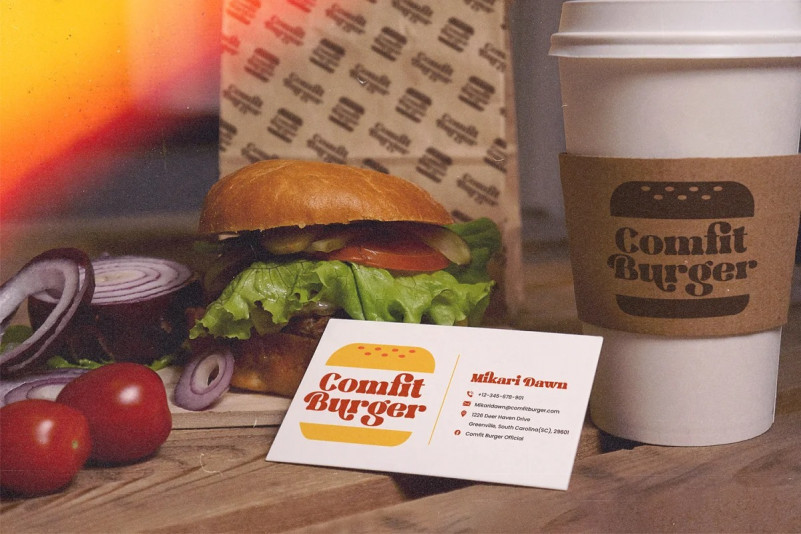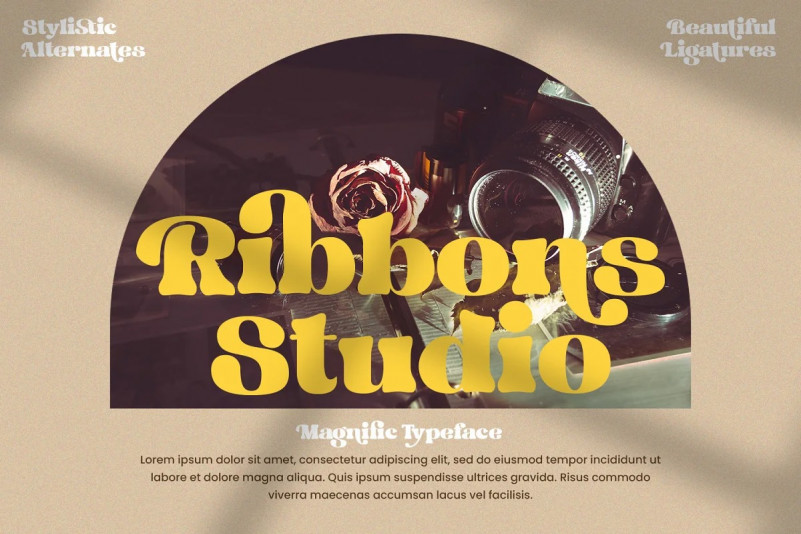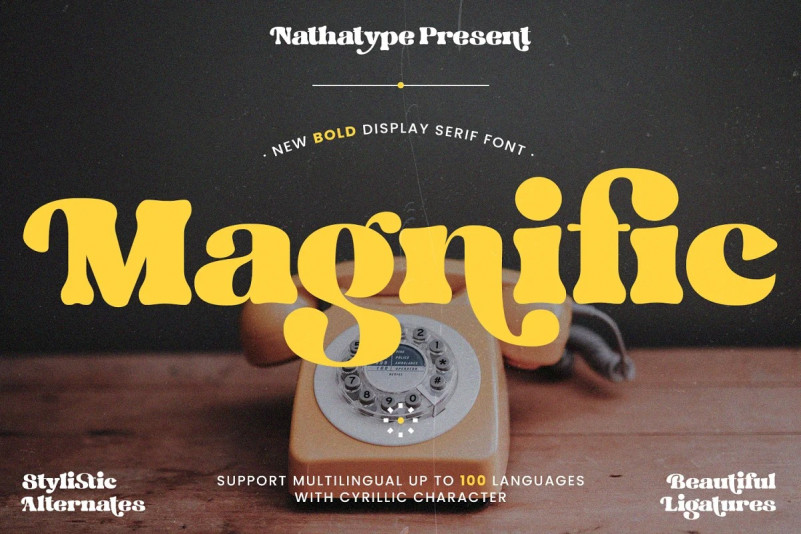
Magnific Font
Magnific Serif Font is a bold display serif font that expresses powerful yet welcoming vibe. It’s modern, simple, easy to read, and works equally as well in header and body text-what’s not to love! Beside that, this font has more fascinating features that helps you maximize your design.